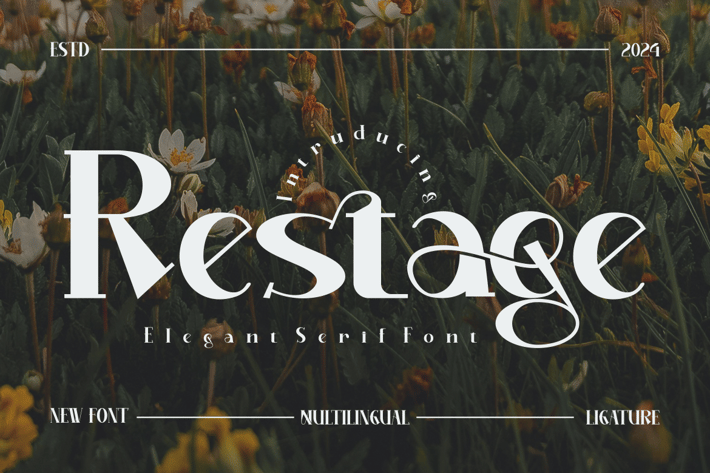
Restage Font
Proudly present our new product Restage Font
Restage Font is a modern and authentic font.
Perfect for both professional and branding needs of a product.
This font is suitable for any branding project like quotes, logo, blog header, poster, banding, letter, invitation, stationery,
etc... Designed as a versatile and flexible that can be used on a range of projects and mediums.
outstanding in a wide range of contexts.